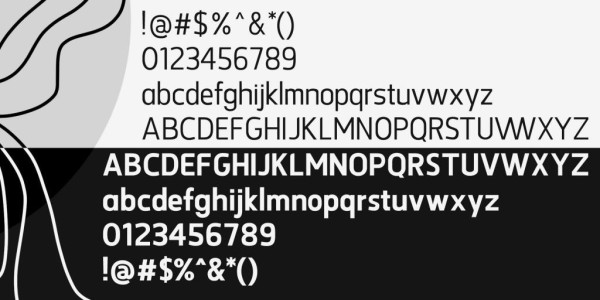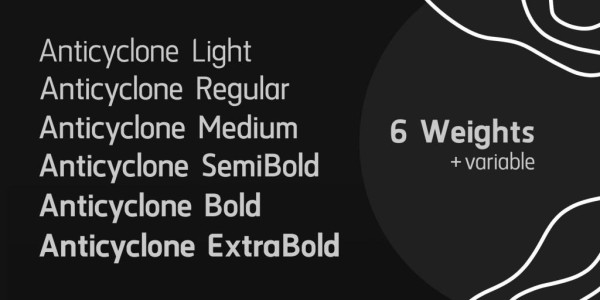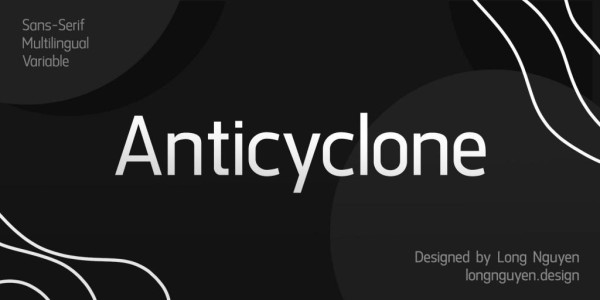
Anticyclone Font
Anticyclone Font, a simple and sans serif font. So perfect for you who needs a typeface for logo designs, magazine, social media, brochure, and many more.